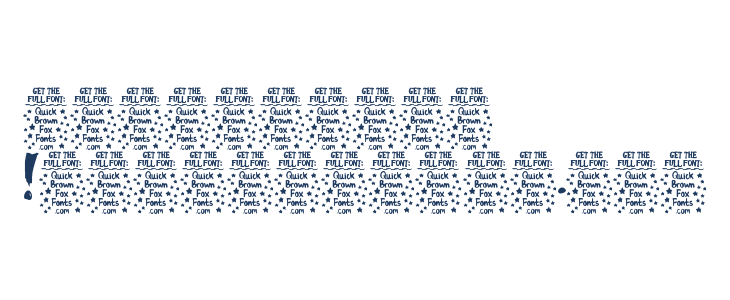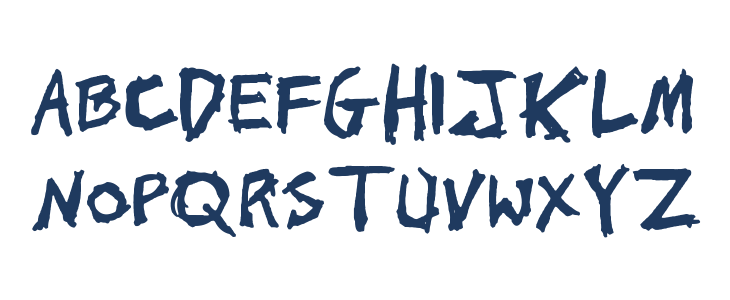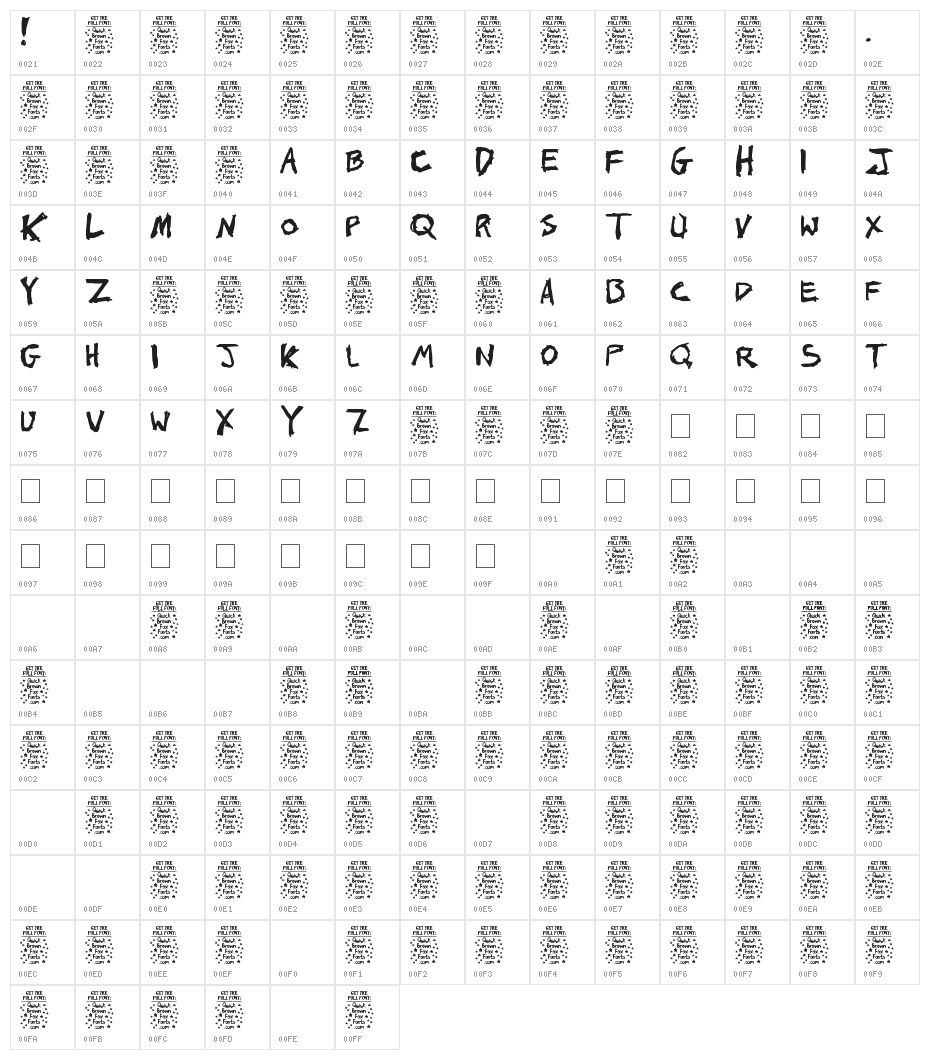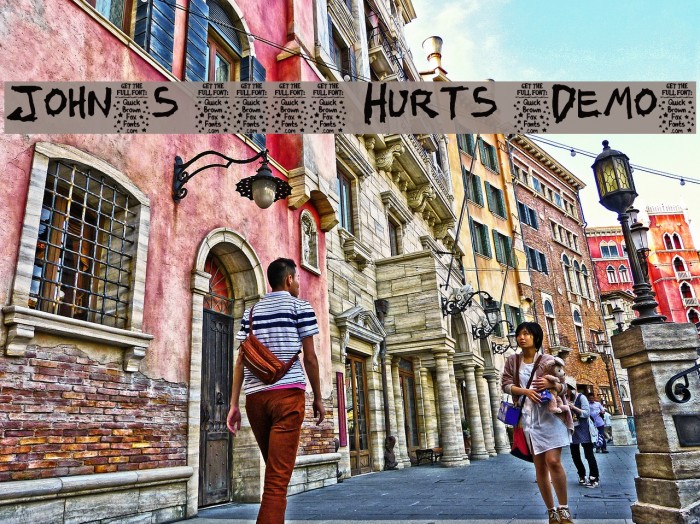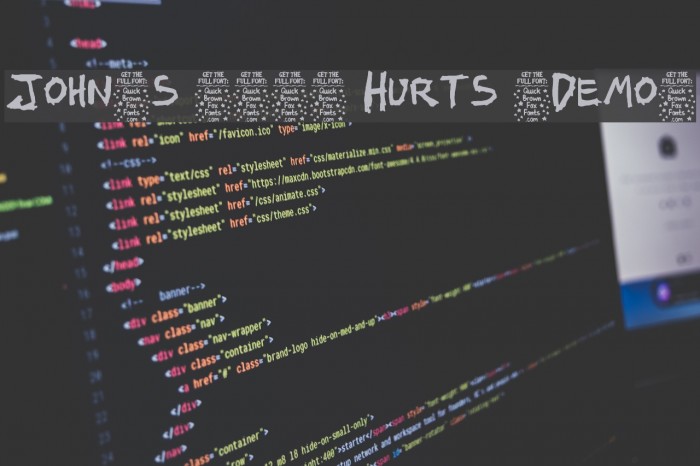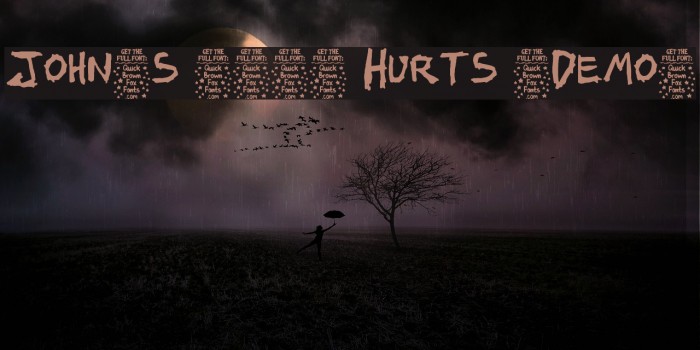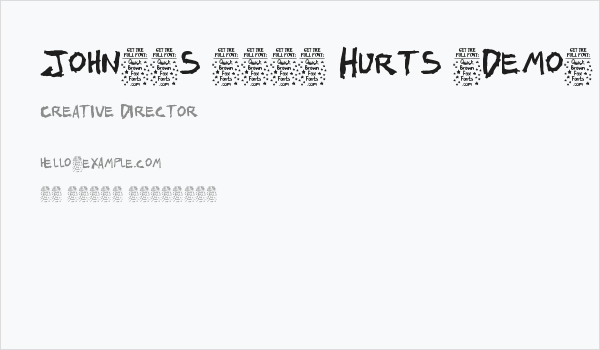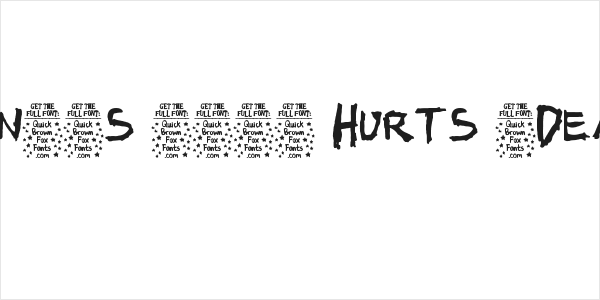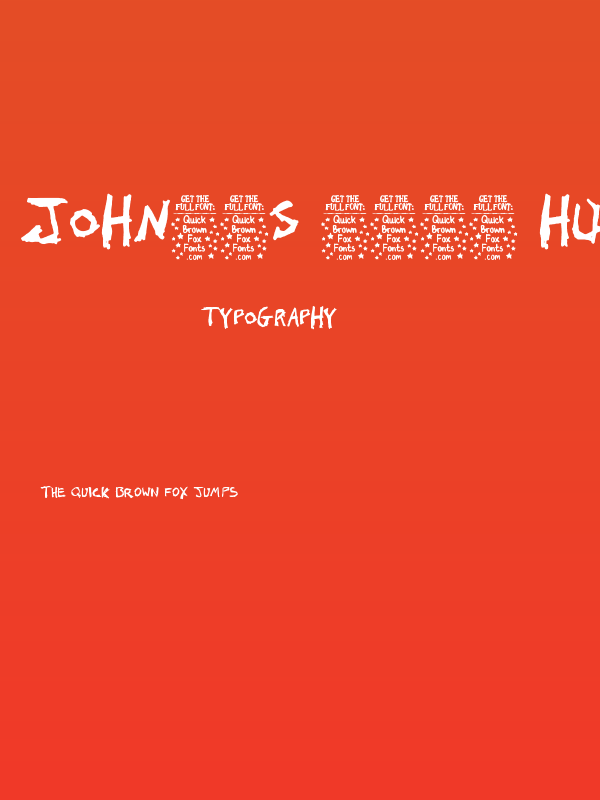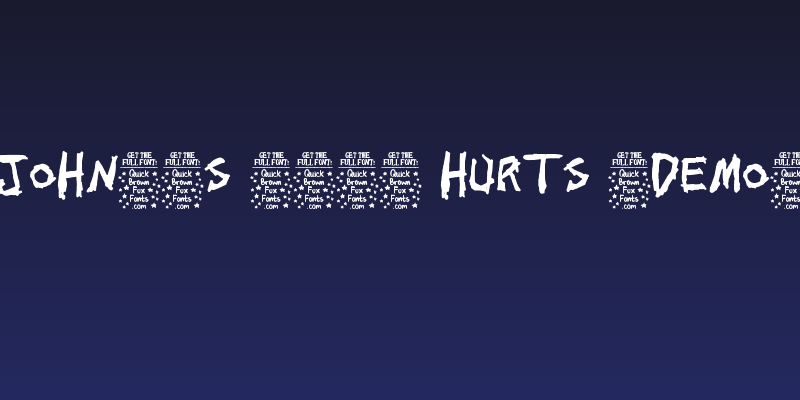
John's 1000 Hurts [Demo] Font
John's 1000 Hurts [Demo] Description
This font exhibits a bold and expressive style with a hand-drawn appearance. The characters are irregular and dynamic, giving a sense of movement and energy. The strokes are thick and uneven, contributing to a raw and edgy aesthetic. This font captures attention with its dramatic flair, making it suitable for designs that require a strong visual impact. The uppercase and lowercase letters maintain a consistent style, while the numbers and special characters complement the overall look. Its unique character shapes make it ideal for projects that aim to convey creativity and individuality.